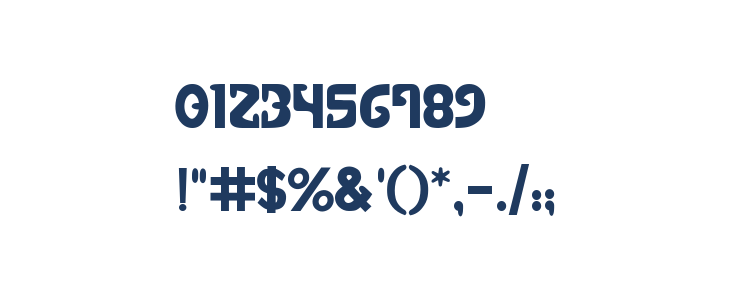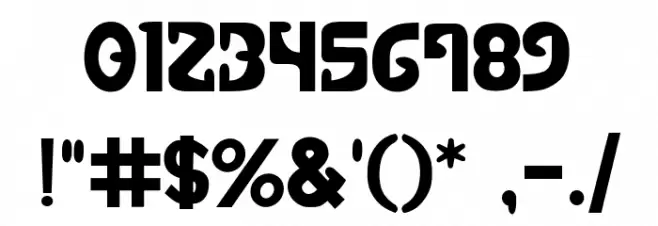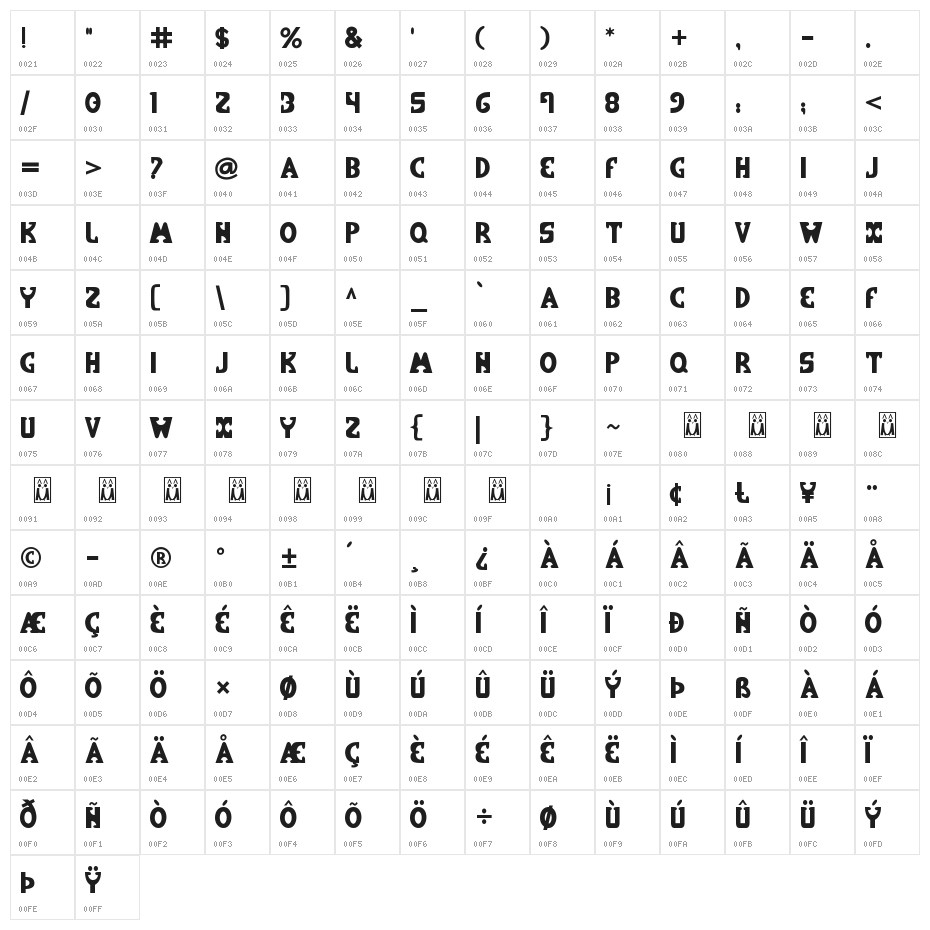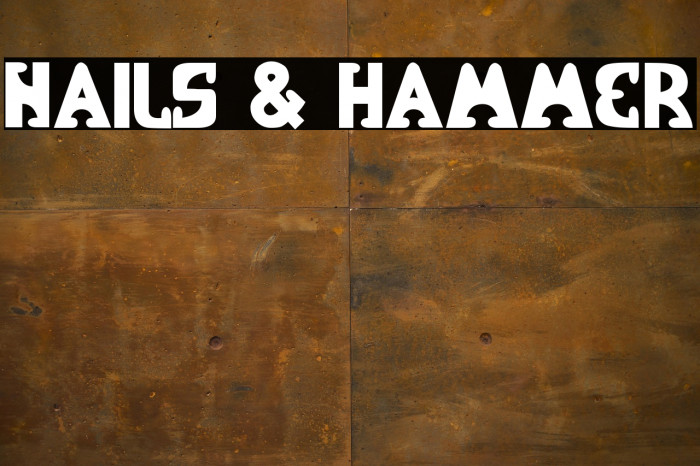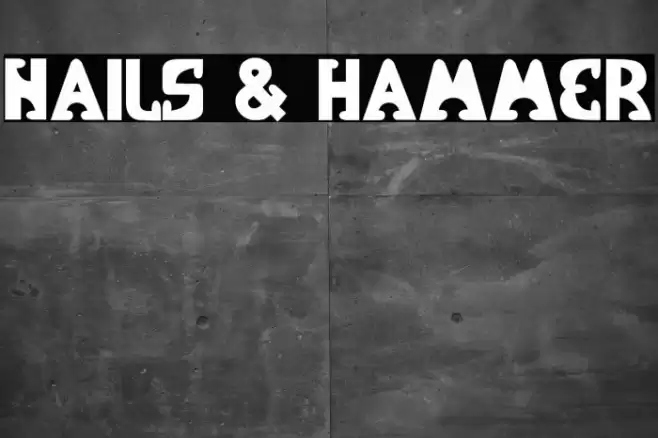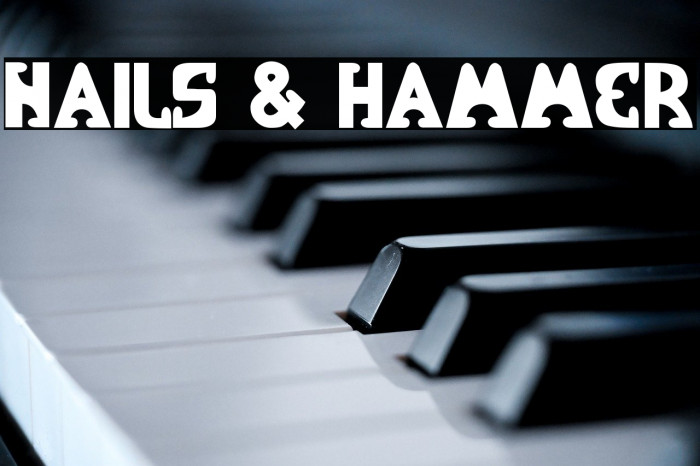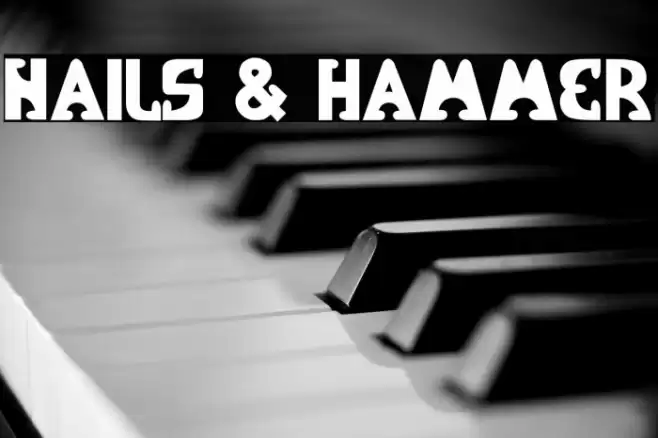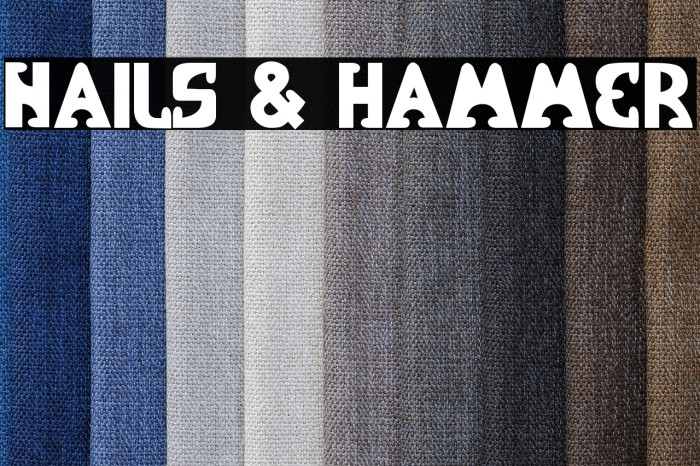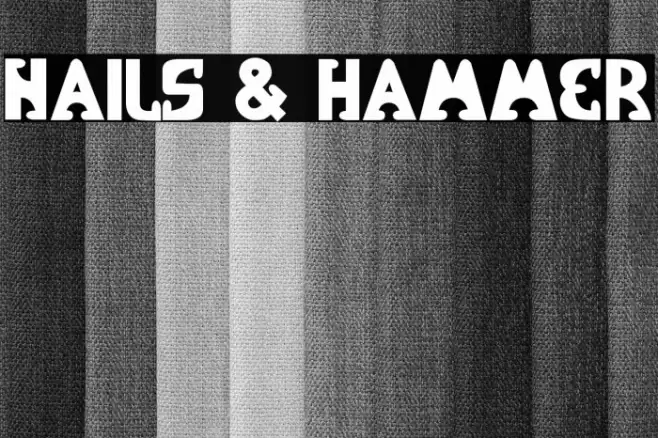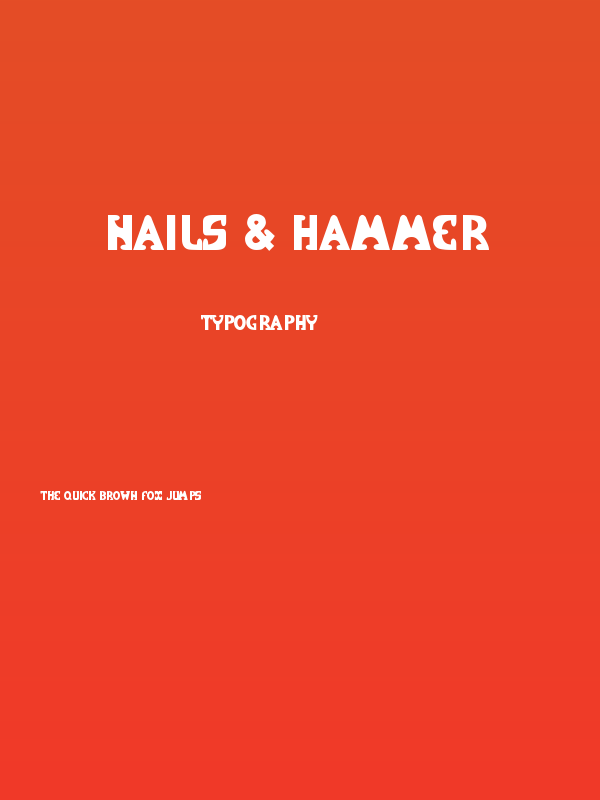
Nails & Hammer Font
Nails & Hammer Description
This font features a bold and dynamic design with a strong presence. The characters are crafted with thick strokes and unique cut-out elements that create a sense of movement and energy. The uppercase letters have a distinct, almost tribal aesthetic, while the lowercase letters maintain a consistent style. The numbers are equally bold, ensuring they stand out in any context. Special characters are designed to match the overall boldness and style, making this font suitable for attention-grabbing headlines and creative projects.